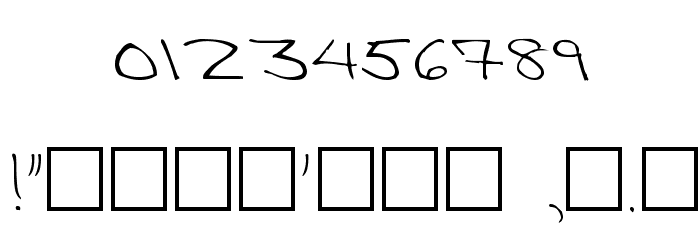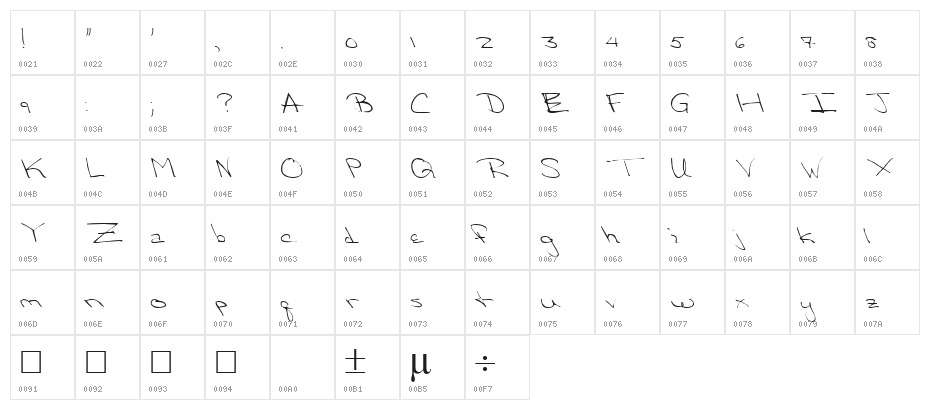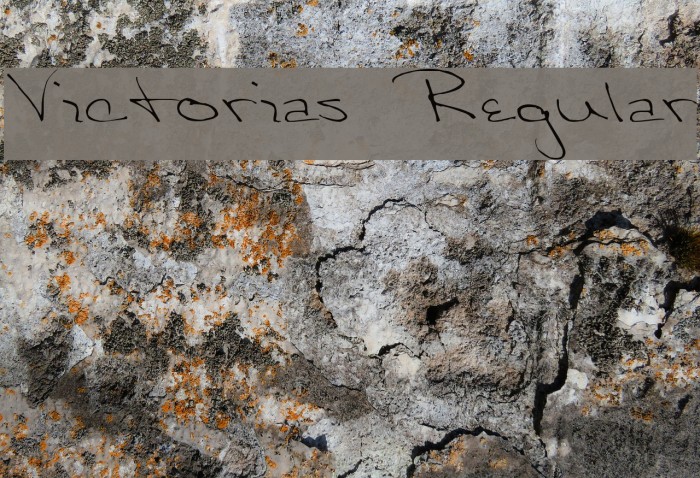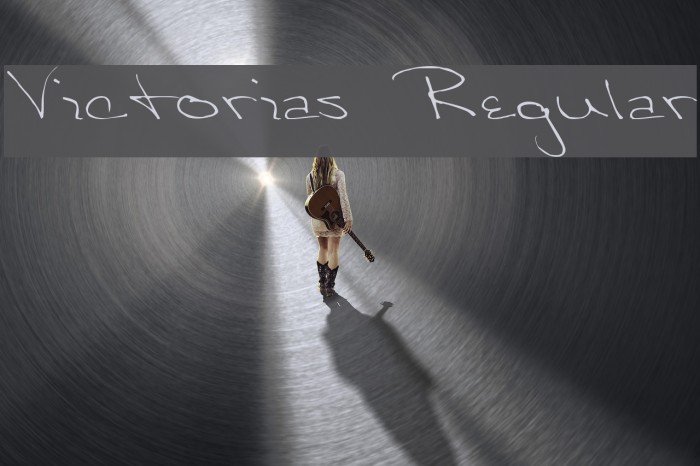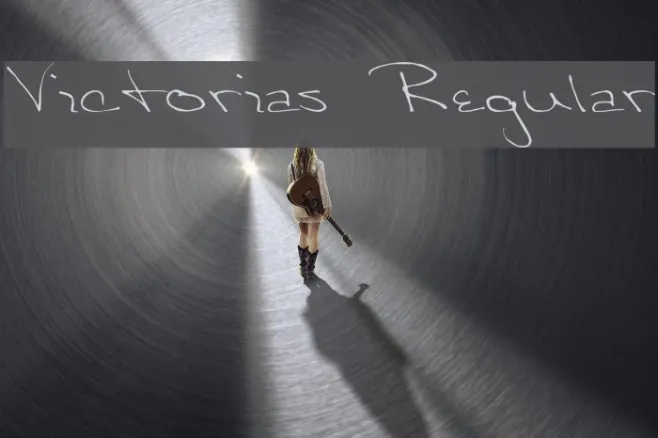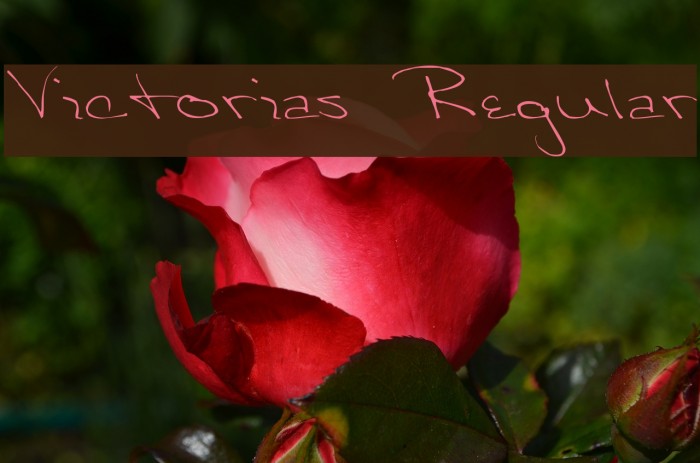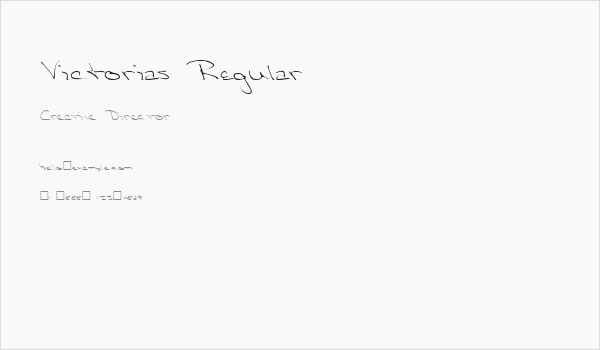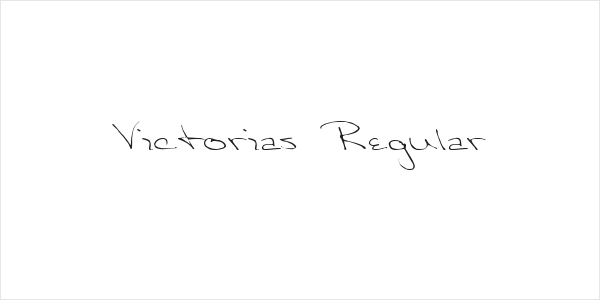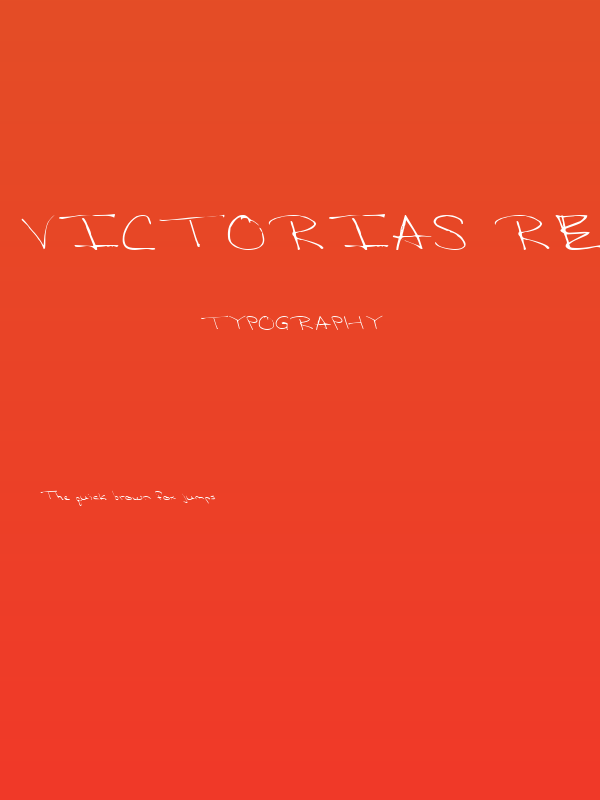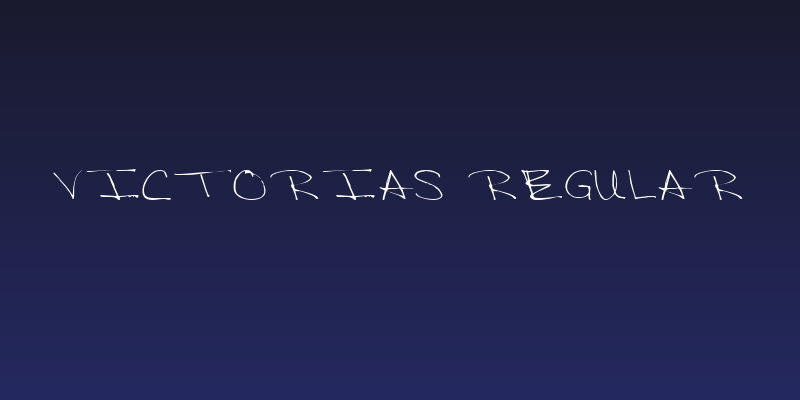
Victorias Regular Font
Victorias Regular Description
This font exhibits a playful and casual handwritten style, characterized by its irregular strokes and whimsical appearance. The letters are slightly tilted, giving a dynamic and lively feel. The uppercase letters maintain a consistent height, while the lowercase letters vary in size, adding to the informal aesthetic. The numbers follow the same playful style, with unique curves and angles. The special characters are creatively designed, complementing the overall theme. This font is perfect for projects that require a personal touch or a relaxed vibe.
| Proposed Projects | Ideal for greeting cards, personal blogs, children's books, and creative branding. |